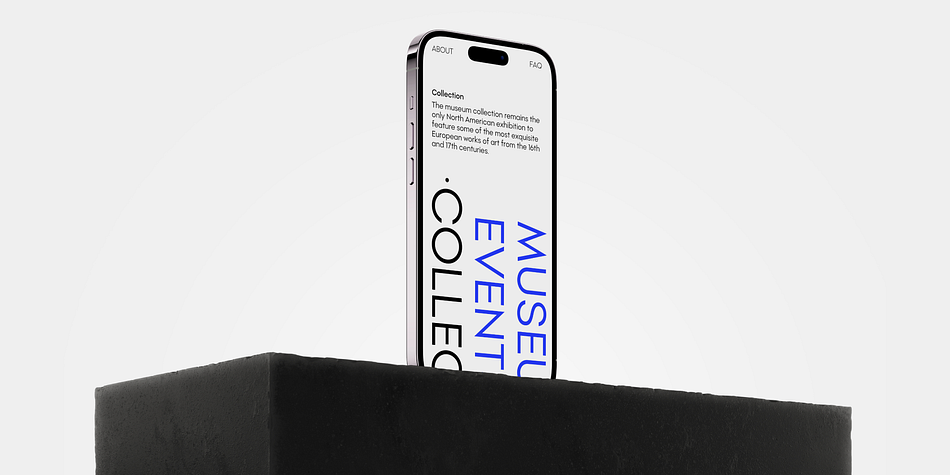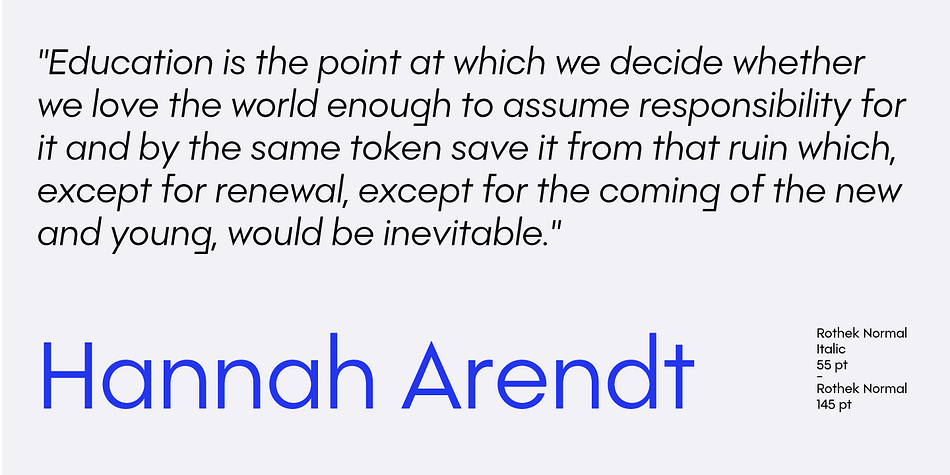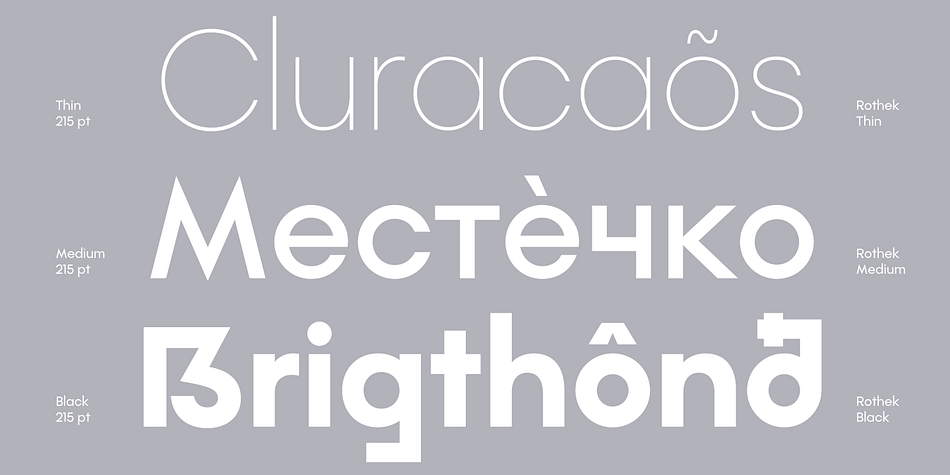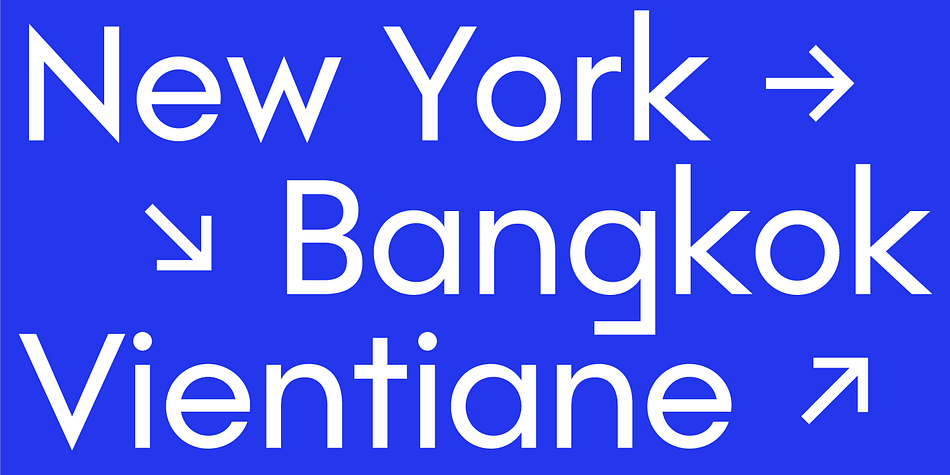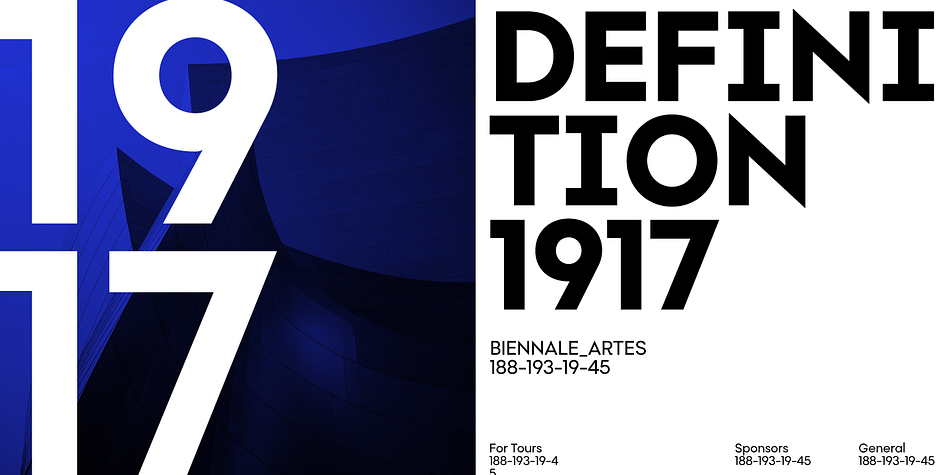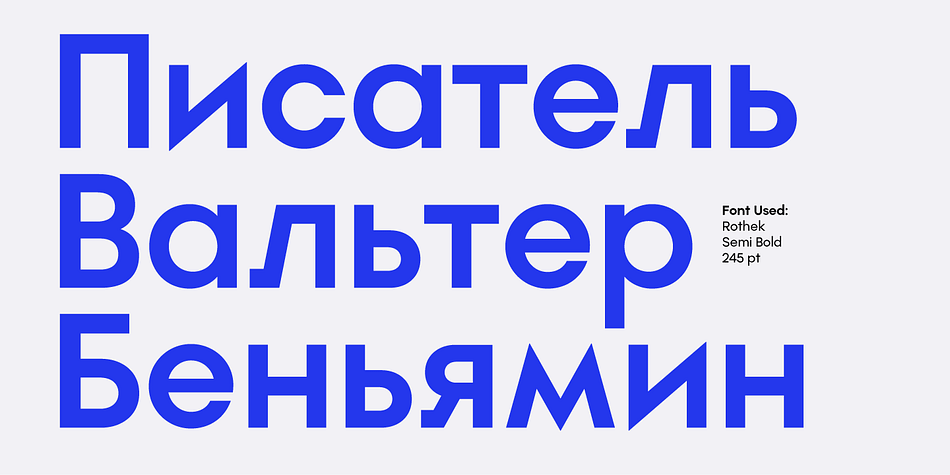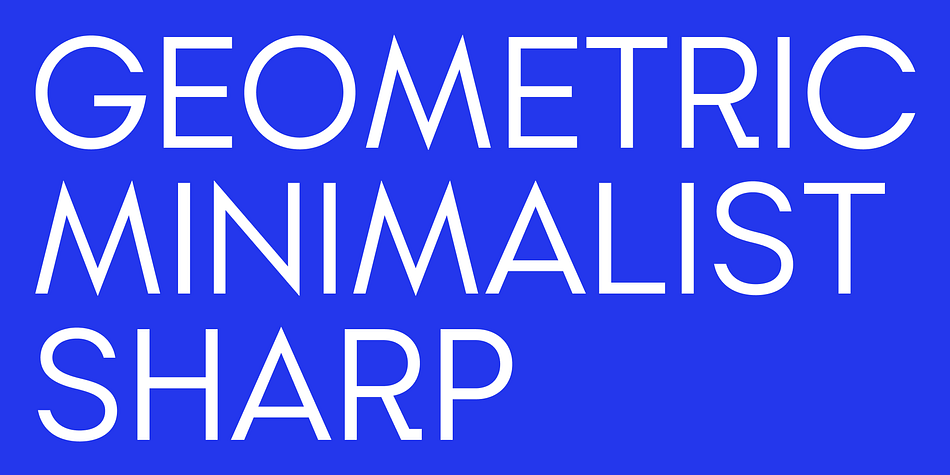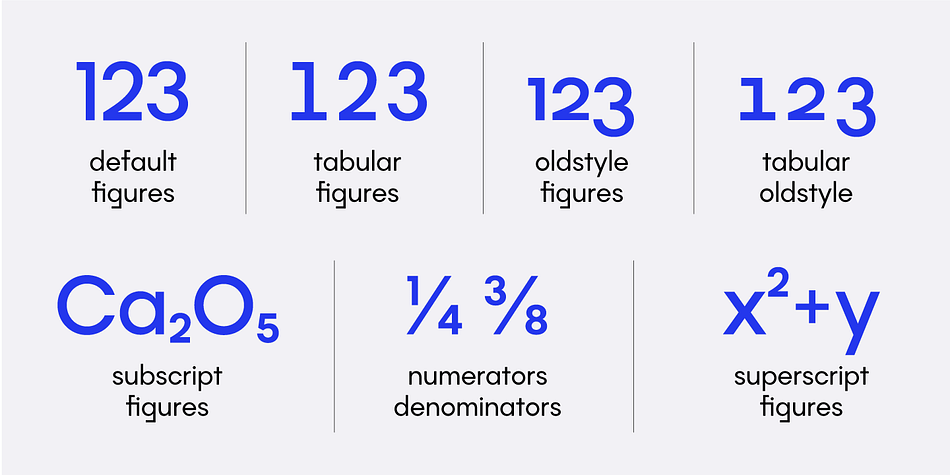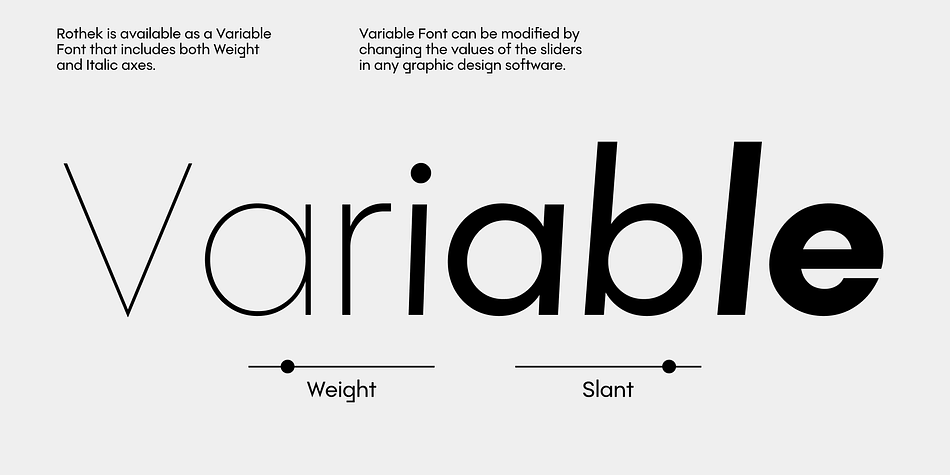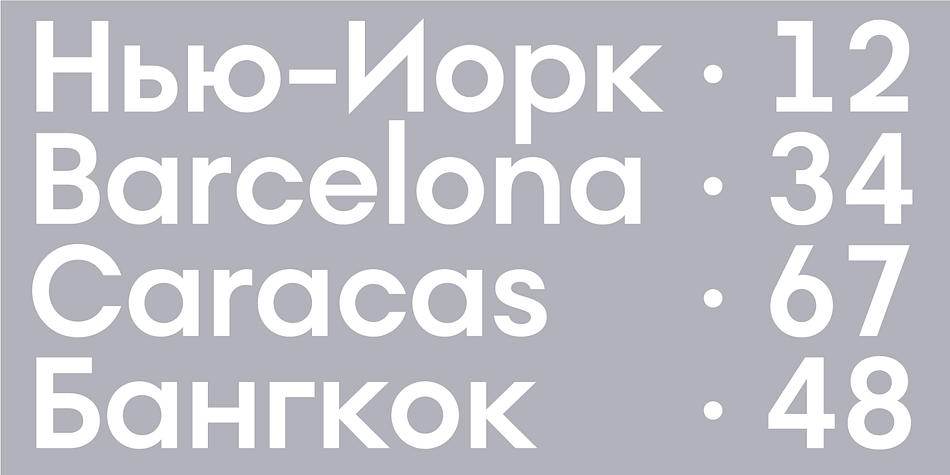
Designed by Evgeny Tantsurin, Rothek is a sans serif font family. This typeface has twenty styles and was published by Groteskly Yours.
Rothek is a geometric sans serif type family with a strong and unique character. It comes in 20 weights — 10 uprights and 10 italics — and is a perfect tool for any designer who needs a versatile font for a variety of projects. While retaining its uniqueness and whimsicality, Rothek is highly legible even at smaller weights, which makes it a perfect fit for app and web design.
But what’s really great about Rothek is its OpenType features, which make it really stand out. Not only does it know how to do fractions, but it also does subscript and superscript; it’s equipped with case-sensitive punctuation, which adjusts the height of your parentheses, hyphens (and many more) to the height of your capital letters. But there’s still more: Rothek is loaded with various figures — from default proportional numerals to oldstyle figures, tabular figures and tabular oldstyle figures. Throw in a bunch of stylistic alternates and you’ve got a perfect typeface for any project.
Rothek supports all European languages and Vietnamese. On top of that there’s Extended Cyrillic set for most Slavic languages. As a cherry on top, there are stylistic alternatives for selected glyphs both in Latin and Cyrillic layouts and lots of extra symbols to work and experiment with.
With 900+ glyphs in each style, Rothek is a perfect workhorse font for those who need a modern sans serif font with a strong character. Two weights (Extra Light, Bold Italic) are free to try and use!